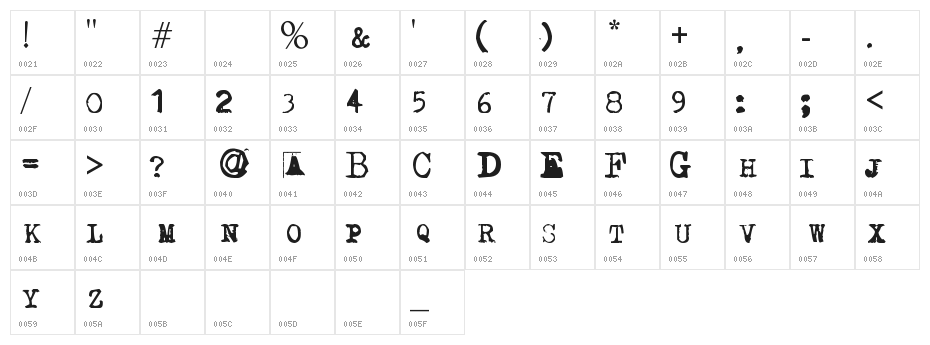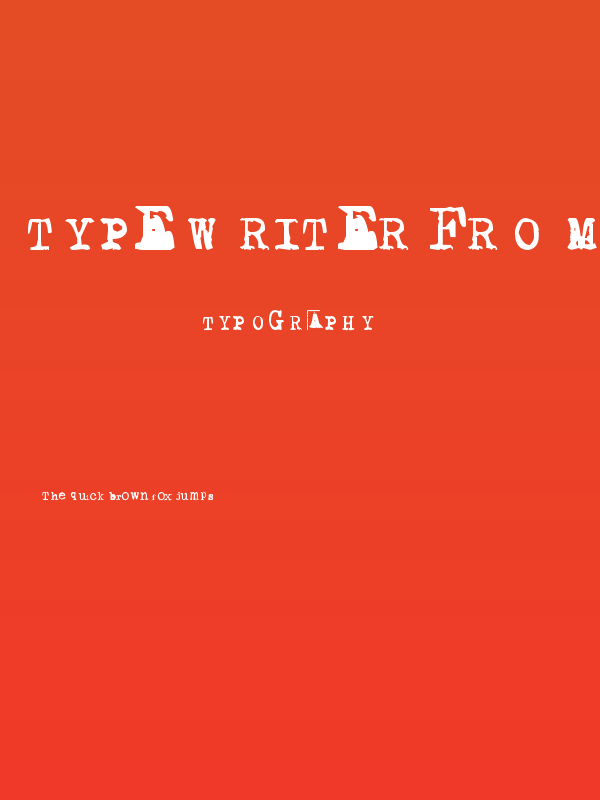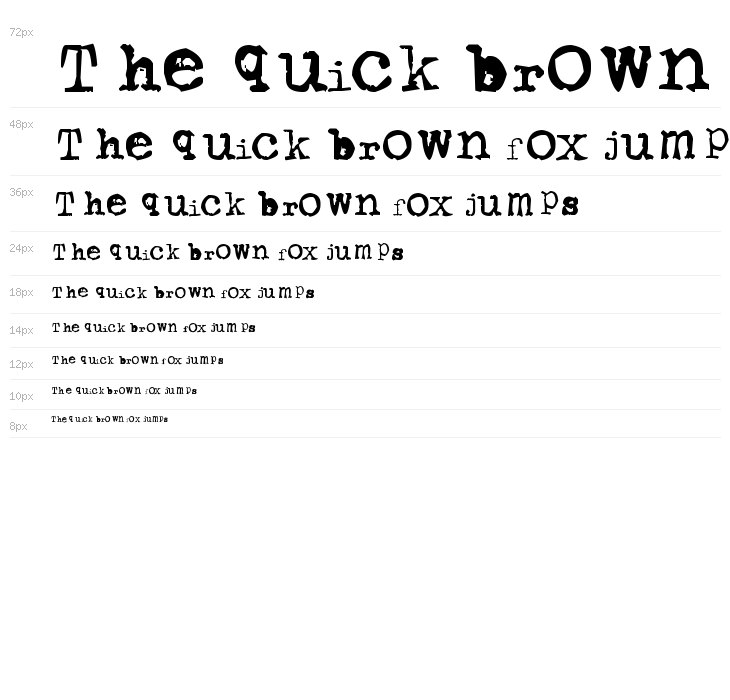
Typewriter from 286 Font
Typewriter from 286 Description
This font features a distressed, vintage typewriter style, characterized by uneven edges and a worn appearance. The letters have a rough texture, reminiscent of old typewriter keys that have seen extensive use. The uppercase and lowercase letters maintain a consistent style, with slight variations in thickness and texture that add to the authentic, aged look. Numbers and special characters follow the same design, ensuring a cohesive appearance across all glyphs. This font evokes a sense of nostalgia and is perfect for projects that aim to capture a retro or historical feel.